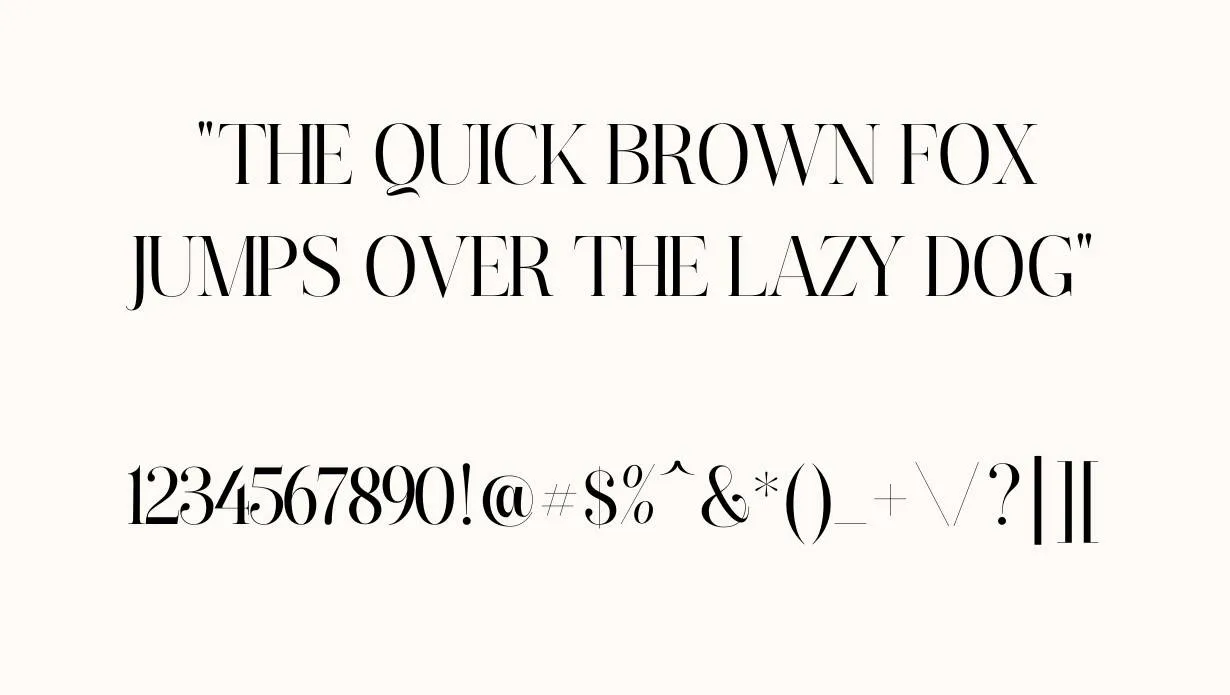
Paradizo Font is a Serif font that brings a sense of creativity and flair to your designs. It’s perfect for projects that require a touch of artistic expression, such as brand logos, art posters, or marketing materials.
You can easily pair this stunning typeface with rotis sans serif font. Whether you’re designing in Canva or Adobe, Paradizo Font adds a unique and vibrant element to your creations.
Paradizo Font Family
The font offers a wide variety of characters, including uppercase and lowercase letters, numerals, punctuation, and special characters.
| Name | Paradizo Font |
| Designer | Surplus Type Co |